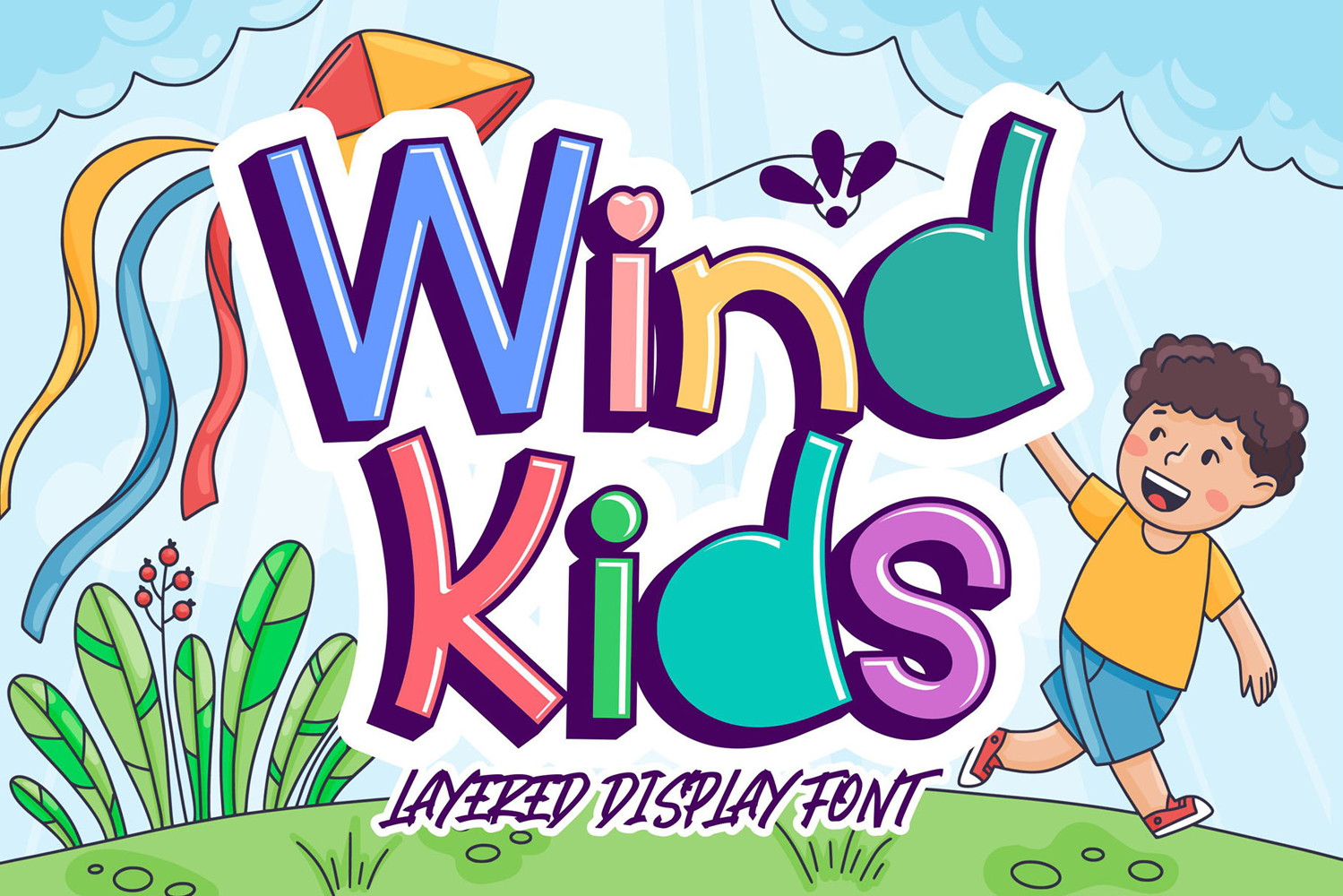
Wind Kids - Layered Display Font
Introducing Wind Kids – the Cute Layered Display Font that brings a playful and delightful charm to your designs. Perfect for projects aimed at children or those needing a touch of whimsy, Wind Kids offers a versatile and engaging aesthetic that stands out.
✨ Playful and Delightful: Wind Kids captivates with its fun and adorable letterforms. Each character is crafted to evoke a sense of joy and creativity, making it ideal for designs that need a cute and cheerful appeal.
🌟 Layered Versatility: This font features a unique layered design, allowing for creative combinations and vibrant effects. Perfect for adding depth and dimension to your projects, Wind Kids offers endless possibilities for customization.
🖋️ Perfect for Children’s Projects: Wind Kids is an excellent choice for children’s books, posters, educational materials, and more. Its playful and inviting style makes it engaging and appealing to young audiences, bringing a sense of fun to any project.
🎨 Whimsical and Eye-Catching: The whimsical nature of Wind Kids adds a charming touch to your designs. Its eye-catching style ensures your text stands out, making it perfect for branding, packaging, and promotional materials.
Elevate your designs with Wind Kids – the Cute Layered Display Font that combines playfulness, versatility, and charm. Ideal for making a delightful visual impact, Wind Kids is your go-to font for adding a fun and engaging touch to any project.